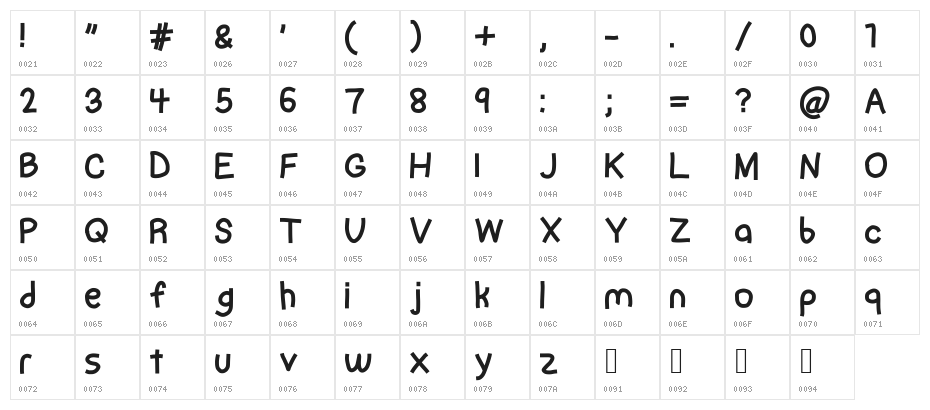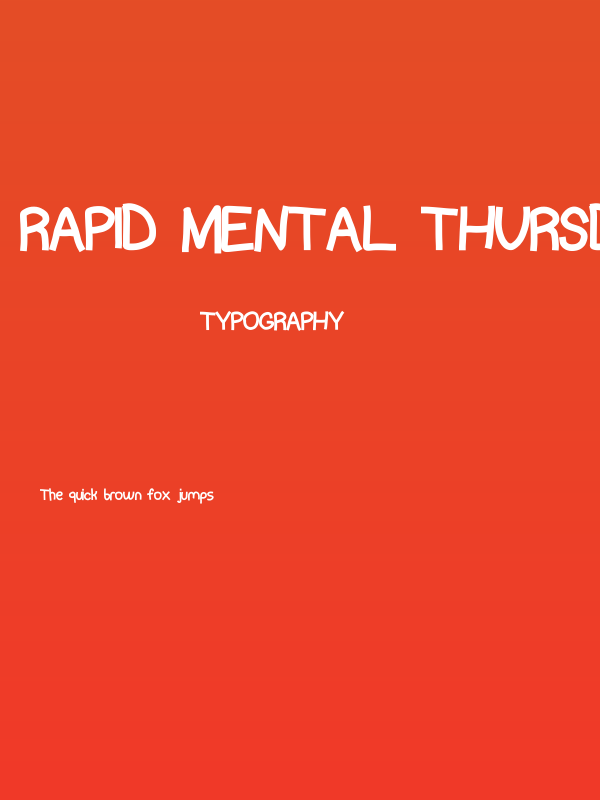
rapid mental thursday Font
rapid mental thursday Description
This playful and bold font features a hand-drawn aesthetic with a slightly irregular baseline, giving it a whimsical and informal appearance. The characters are rounded with a consistent stroke width, providing a friendly and approachable feel. The uppercase letters are tall and slightly narrow, while the lowercase letters maintain a consistent height, enhancing readability. The numerals are bold and match the style of the letters, ensuring uniformity across the typeface. Special characters are creatively designed, adding to the overall charm of the font. This typeface is perfect for projects that require a fun and engaging look.
| Proposed Projects | Ideal for children's books, playful branding, posters, and greeting cards. |